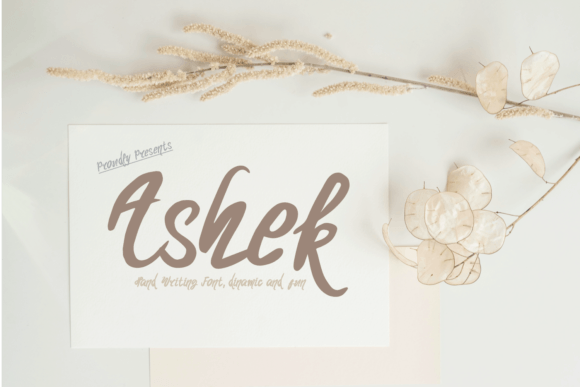
The Art of Elegant Typography: Unveiling the Ashek Font
Have you ever found yourself scribbling in the margins of a notebook, letting your pen dance across the page as you brainstorm ideas for a special project? For designers, those moments of creative freedom are precious, and the right font can make all the difference. That’s where the Ashek Font comes in – a script font that’s as flexible as it is beautiful.
With its dynamic, twisting shape, the Ashek Font is perfect for adding a touch of elegance to wedding invitations, birthday invitations, boutique displays, and more. Its versatility is what makes it so valuable to designers, who can rely on it to bring their unique vision to life. Whether you’re working on a high-end fashion campaign or a small business’s brand identity, the Ashek Font is sure to impress.
- Unique Characteristic: The Ashek Font features a unique, hand-drawn aesthetic with subtle flair and ornaments, giving it a distinctive and eye-catching appearance.
- Font Metrics: The font’s x-height, cap height, and baseline spacing are carefully designed to ensure optimal readability and legibility, making it suitable for body text and headlines alike.
Ashek Font Review
As a designer, I recently had the chance to work with the “Ashek Font”, and I must say, it’s an interesting typeface.
- The font has a unique, elegant feel to it. It’s perfect for designing luxury or high-end brands.
- The character set is extensive, covering a wide range of languages, including many non-Latin scripts.
- The font is highly customizable, allowing you to adjust the weight, width, and other parameters to suit your design needs.
However, there are some limitations: ⚠️
- The font may not be the best choice for body text, as it can be quite ornate and difficult to read at smaller sizes.
- The font’s unique style can sometimes come across as gimmicky or trying too hard to be different.
- The font is not suitable for digital displays, as it can appear pixelated and fuzzy.
Overall, I’d give the “Ashek Font” 3.5 out of 5 stars. While it’s a beautiful and highly customizable font, its limitations make it best suited for specific use cases, such as designing logos or branding materials.
Tips for Getting the Most Out of Ashek Font
Use the Ashek font to create a unique and elegant look in your designs.
Pair the Ashek font with other elegant fonts to create a sophisticated look.
Use the Ashek font for:
Business cards and marketing materials.
Book covers and editorial designs.
Q: What are the technical specifications of the Ashek Font?